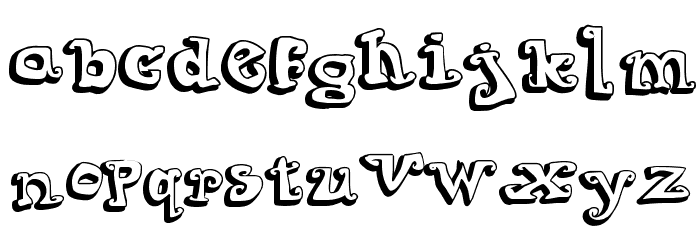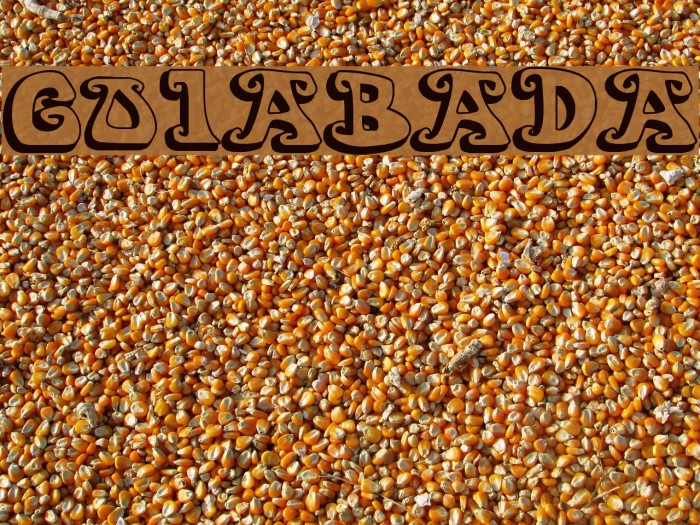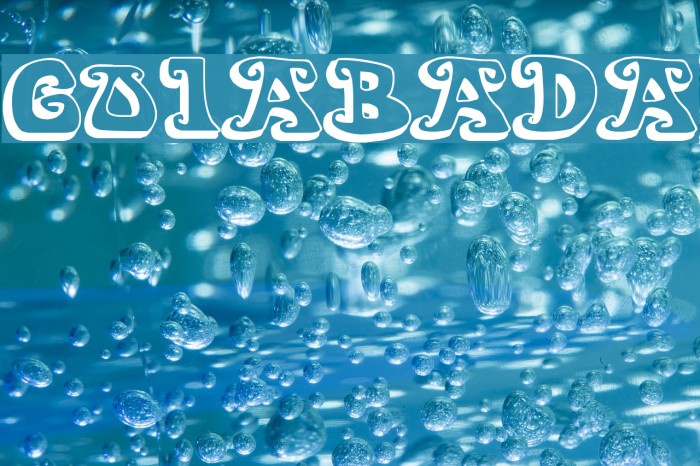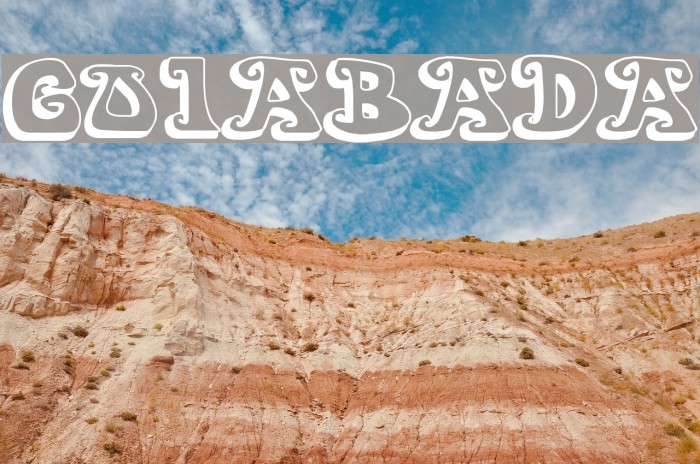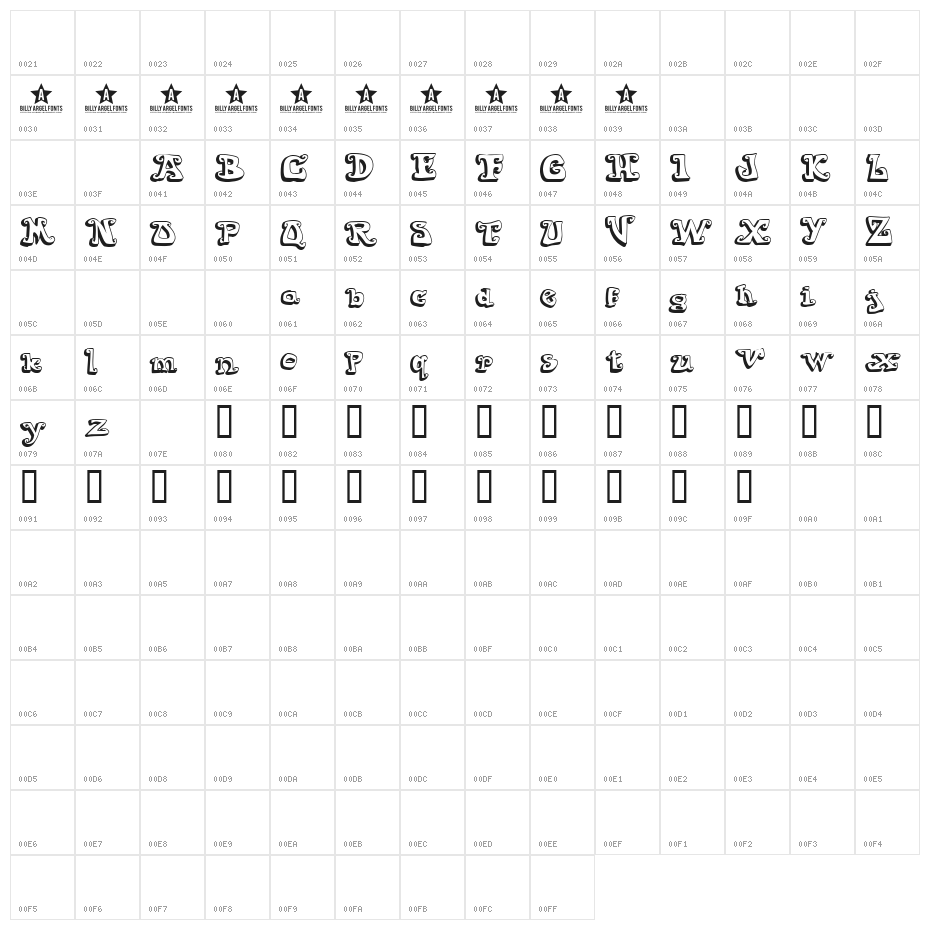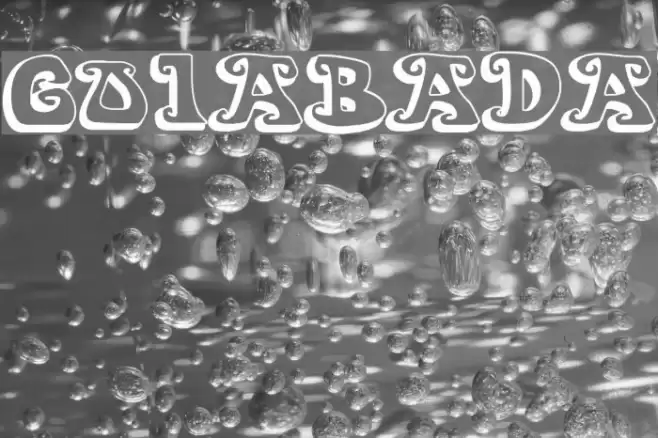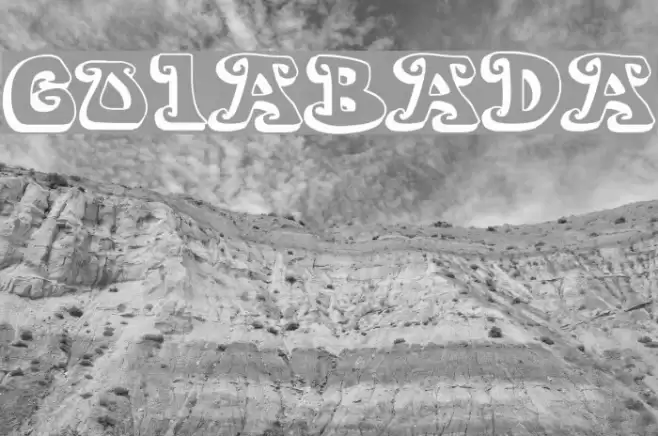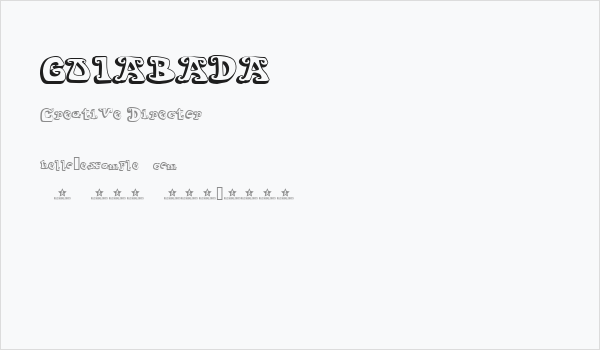
GOIABADA Font
This font features a bold, decorative style with a playful and whimsical appearance. The characters are outlined with a thick black border, giving them a three-dimensional effect. Each letter has unique curves and flourishes, adding to the font's dynamic and lively personality. The uppercase and lowercase letters maintain a consistent style, with exaggerated serifs and varying stroke widths that create a sense of movement. The numbers and special characters follow the same design principles, ensuring a cohesive look across all glyphs. This font is ideal for projects that require a fun and eye-catching typeface.
A bold, decorative font with playful, three-dimensional characters and unique flourishes.